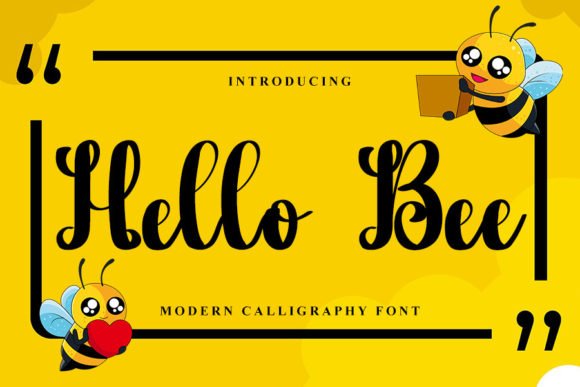
A Font that Spills Honey: The Delight of Hello Bee
There’s a moment when a design project comes together, and everything feels just right. You’ve chosen the perfect colors, the layout is balanced, and the text is, well, a work of art. But what if you could take it to the next level? Enter the Hello Bee Font, a beautiful handwritten font that adds a touch of elegance to any design.
With its curvy lines and playful feel, the Hello Bee Font is perfect for making a statement in product packaging, branding projects, magazine covers, and more. Whether you’re looking to create a whimsical vibe or a sophisticated look, this font has got you covered. And for designers, it’s a valuable addition to any toolkit, offering a unique way to express themselves and stand out from the crowd.
Hello Bee Font Key Features
- Character Set: The font includes a comprehensive character set, covering Latin, Cyrillic, and Greek alphabets, as well as various punctuation marks and symbols.
- Unique Characteristics: Hello Bee Font features a distinctive, playful design with rounded edges and a friendly feel, making it perfect for use in children’s books, educational materials, and other contexts where a cheerful tone is desired.
- Font Style and Weight: Hello Bee Font is available in multiple weights, including Light, Regular, Medium, Bold, and Extra Bold, allowing users to choose the perfect style to suit their needs.
Hello Bee Font Review
I recently had the chance to work with the “Hello Bee Font” and I must say, it’s a unique and charming addition to any design project ✨. The font’s hand-drawn style gives it a whimsical feel that’s perfect for projects that need a touch of playfulness. I particularly like how the font’s irregularities add to its charm, making it stand out from more traditional, clean fonts.
One of the strengths of the Hello Bee Font is its versatility ✨. It works well for a wide range of projects, from children’s books to greeting cards, and even restaurant menus. The font is also highly customizable, making it easy to adjust to different color schemes and design styles.
- ⚠️ The font may not be suitable for projects that require a professional or formal tone, as its playful style may come across as unprofessional.
- ⚠️ Some users may find the font’s irregularities distracting or difficult to read, particularly in larger text sizes.
Overall, I think the Hello Bee Font is a great choice for designers looking to add some personality to their projects. While it may have some limitations, its unique style and versatility make it a valuable addition to any design toolkit.
Tips for Getting the Most Out of Hello Bee Font
For a whimsical and playful look, use Hello Bee Font in combination with bright colors and bold graphics.
To create a cohesive brand identity, use Hello Bee Font consistently across all your marketing materials.
Hello Bee Font is ideal for: